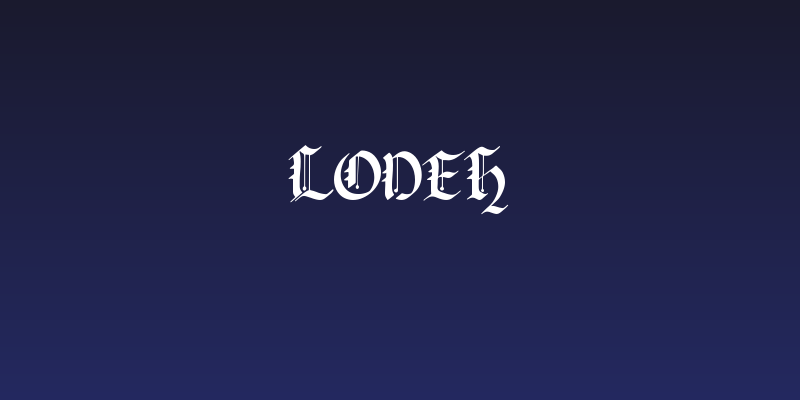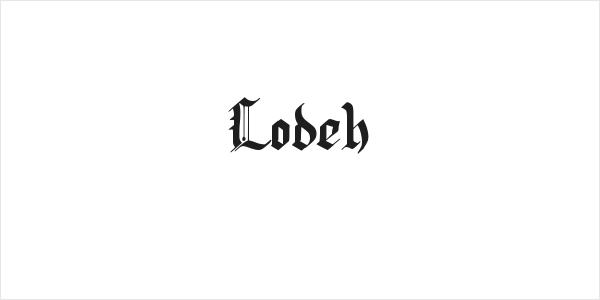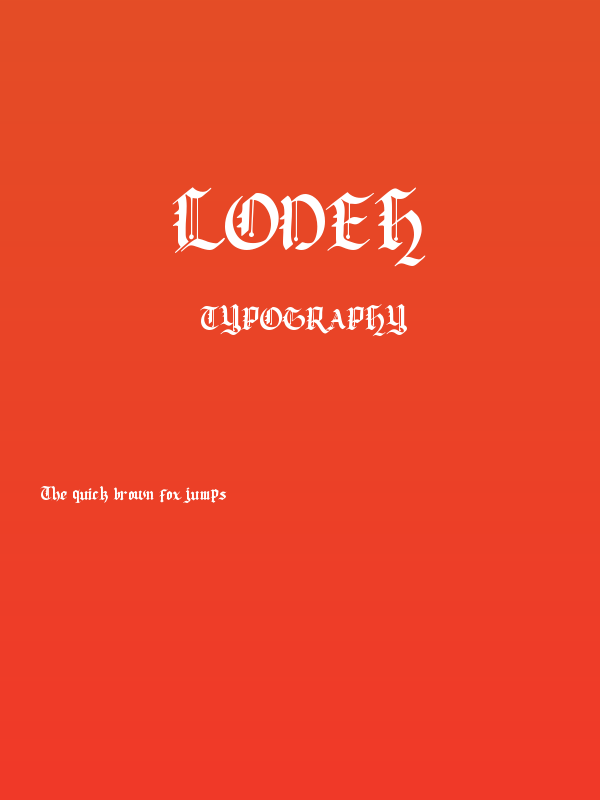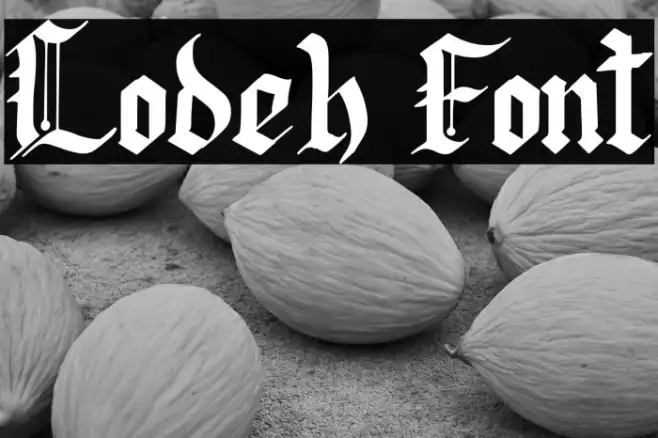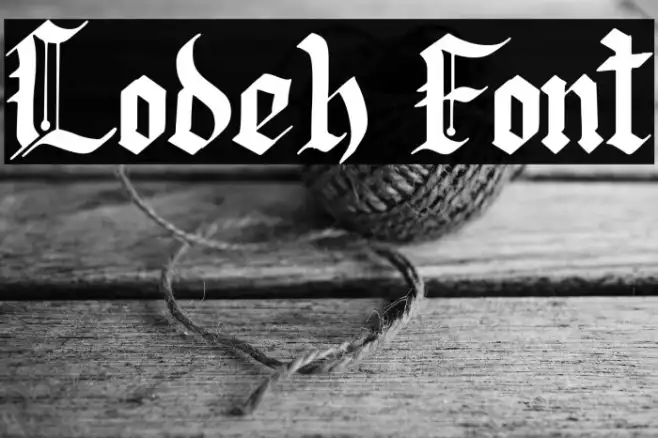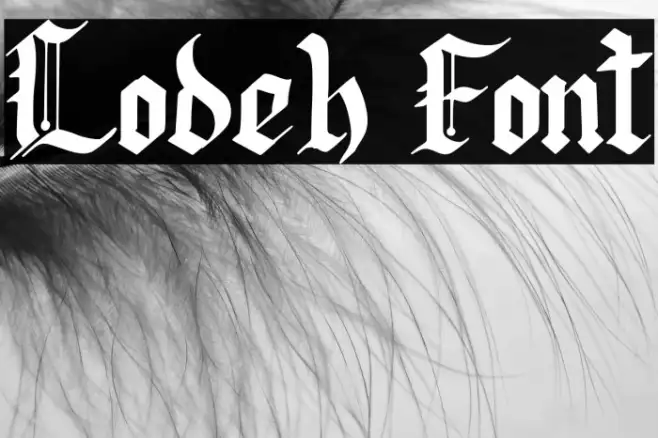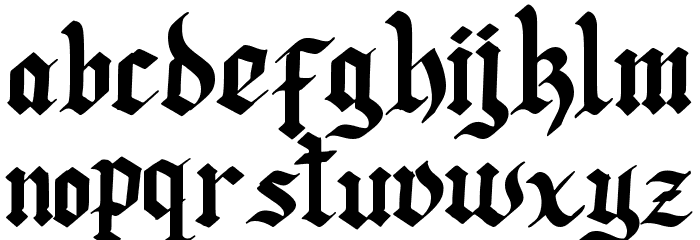
Lodeh Font
Lodeh Description
This font embodies the traditional elegance of Blackletter style, characterized by its intricate and angular letterforms. The uppercase letters are bold and commanding, with sharp serifs and a distinct medieval flair. The lowercase letters maintain the same intricate detailing, offering a cohesive and historical aesthetic. The numerals and special characters are equally ornate, fitting seamlessly into the overall design. This font is perfect for projects that require a touch of historical or gothic influence, such as event invitations, branding for luxury products, or themed publications.
| Proposed Projects | Ideal for historical themed projects, luxury branding, gothic event invitations, and decorative publications. |